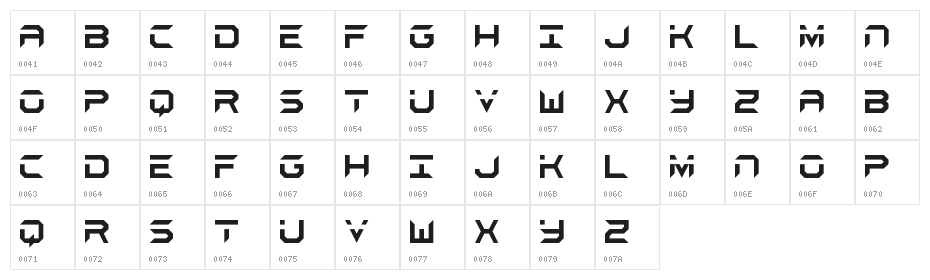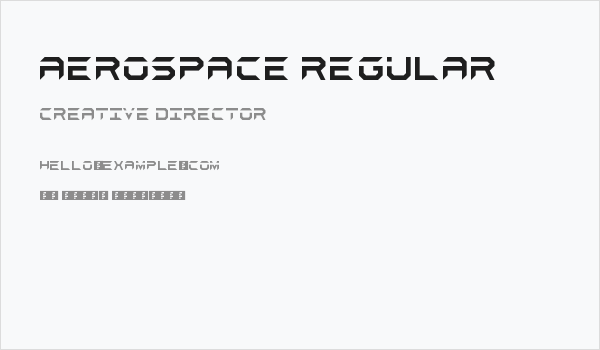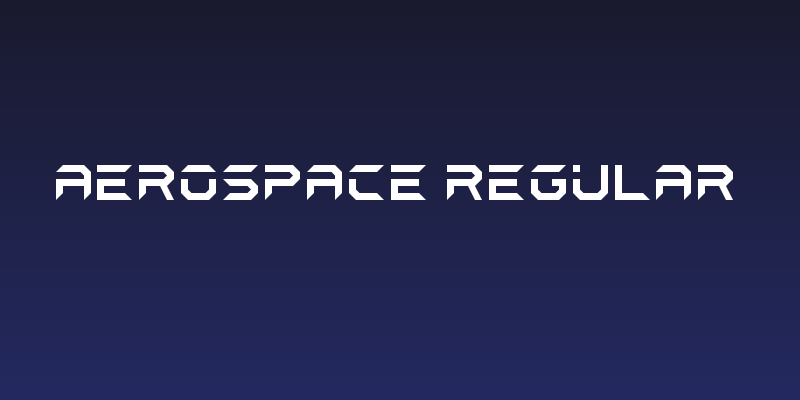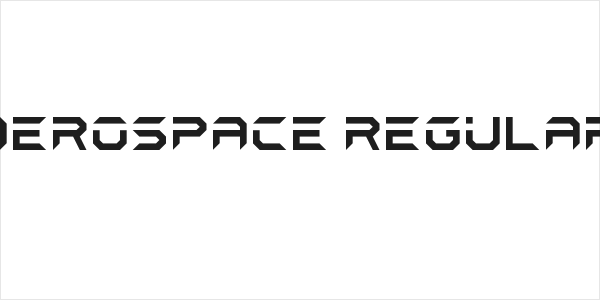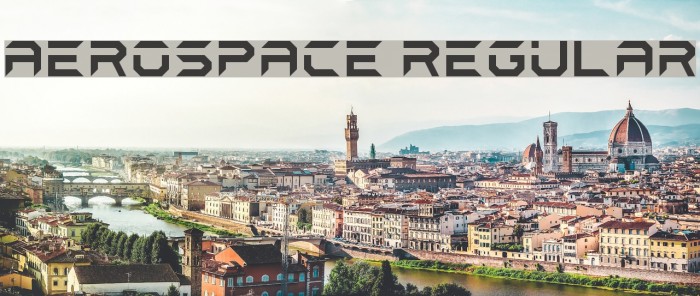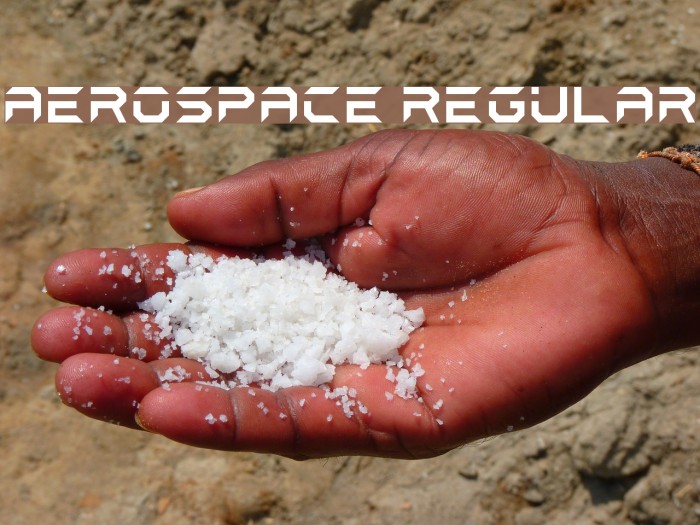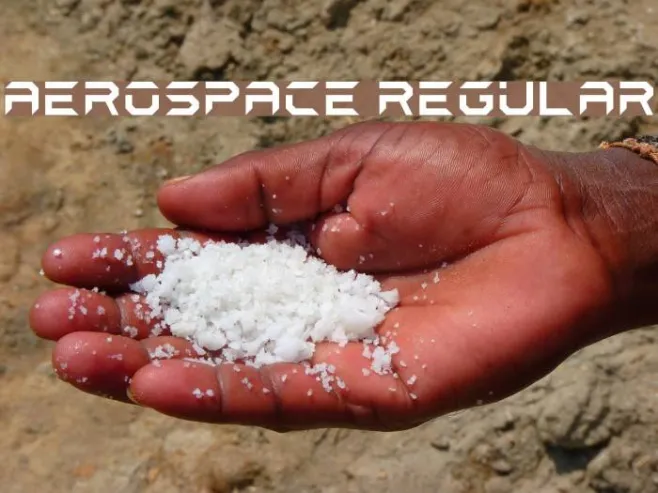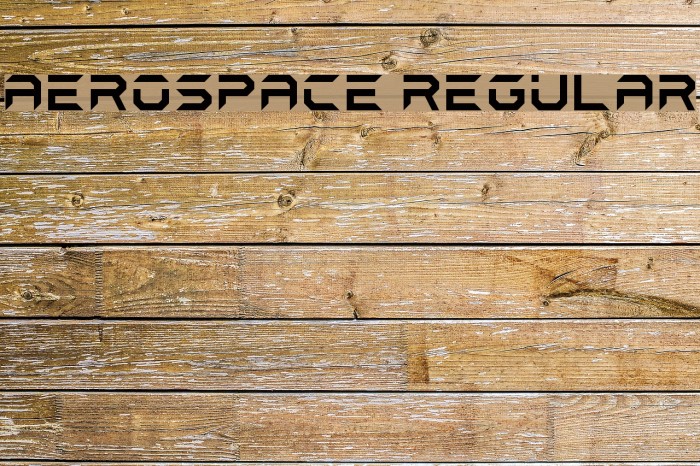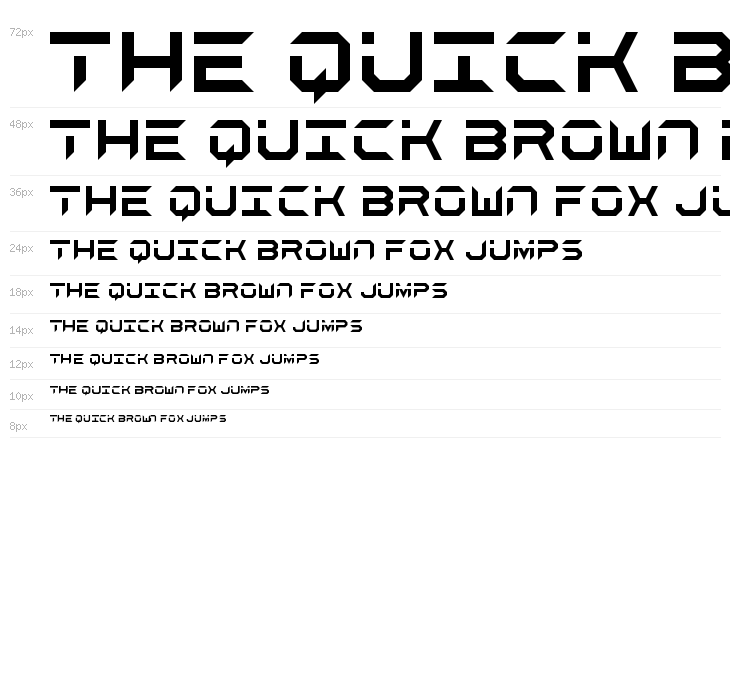
Aerospace Regular Font
Aerospace Regular Description
This font features a futuristic and angular design, characterized by sharp edges and geometric shapes. The uppercase letters exhibit a bold and striking appearance, with consistent line thickness and a distinct sci-fi aesthetic. The lowercase letters maintain the same angular style, ensuring uniformity across the typeface. The numerals are designed to match the overall theme, with a clear and legible structure. Special characters are included, seamlessly integrating with the font's modern and technical look. This typeface is ideal for projects that require a contemporary and edgy feel, such as technology-related branding or digital interfaces.
| Proposed Projects | Ideal for technology branding, digital interfaces, and sci-fi themed designs. |